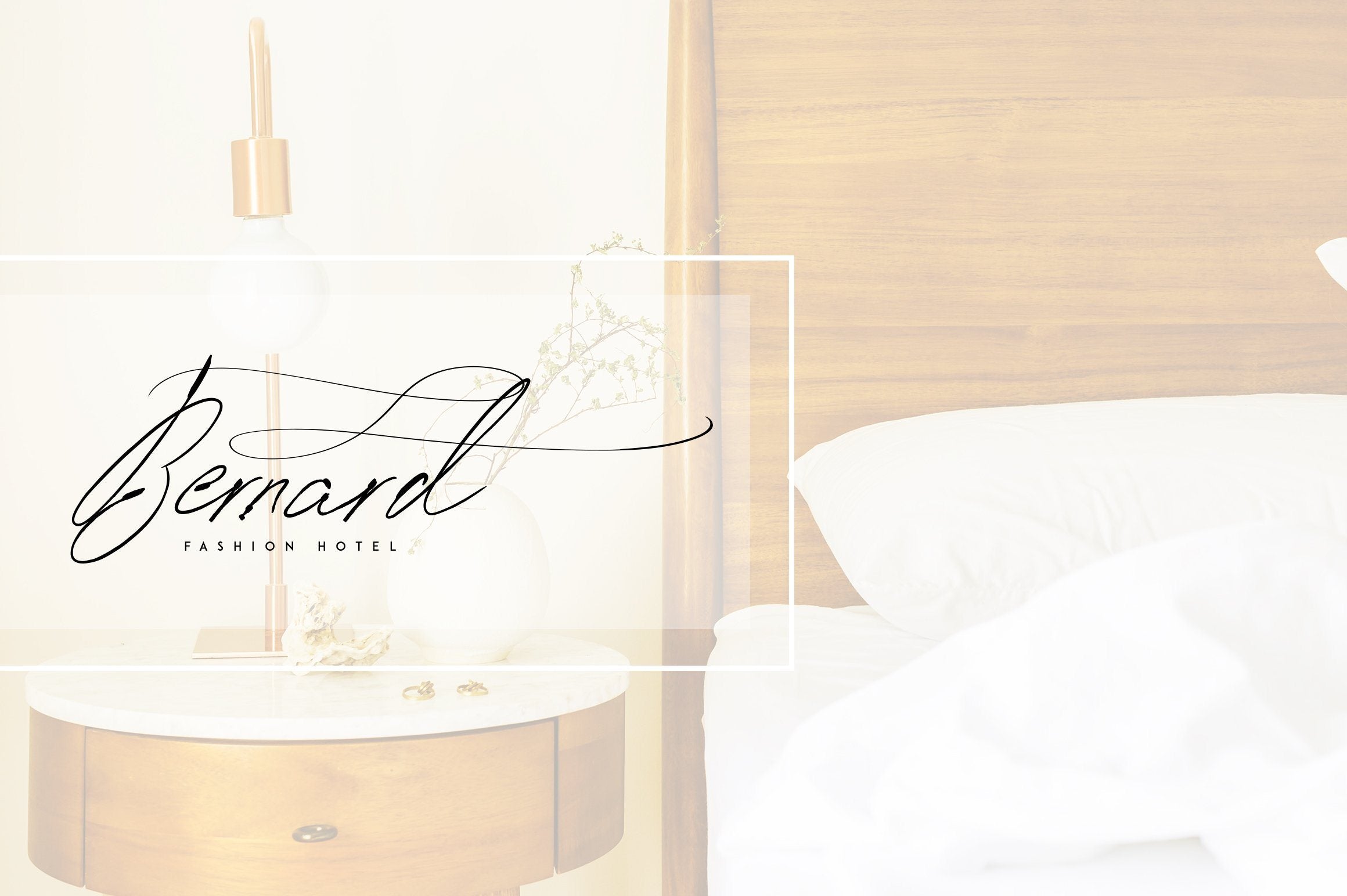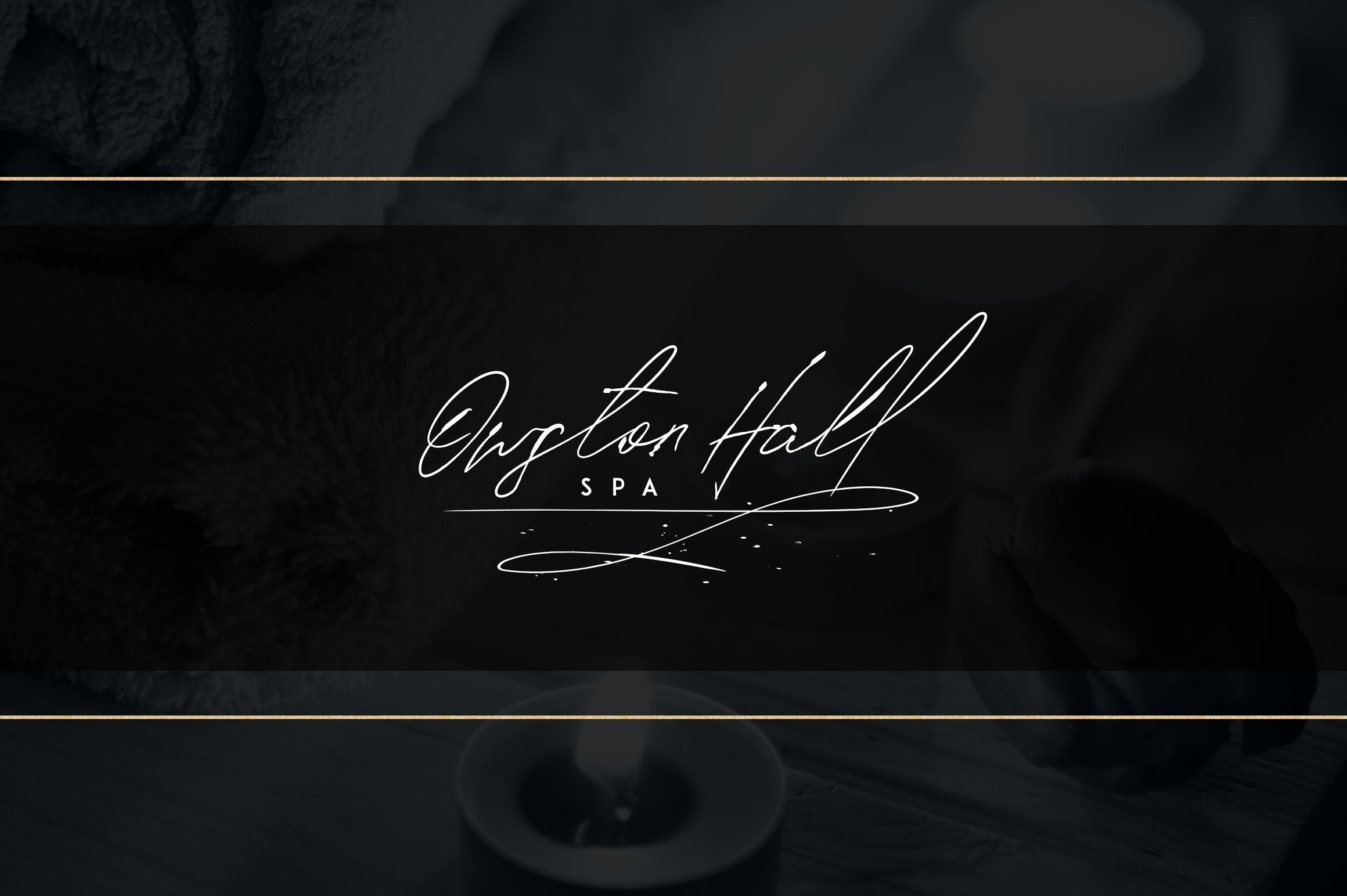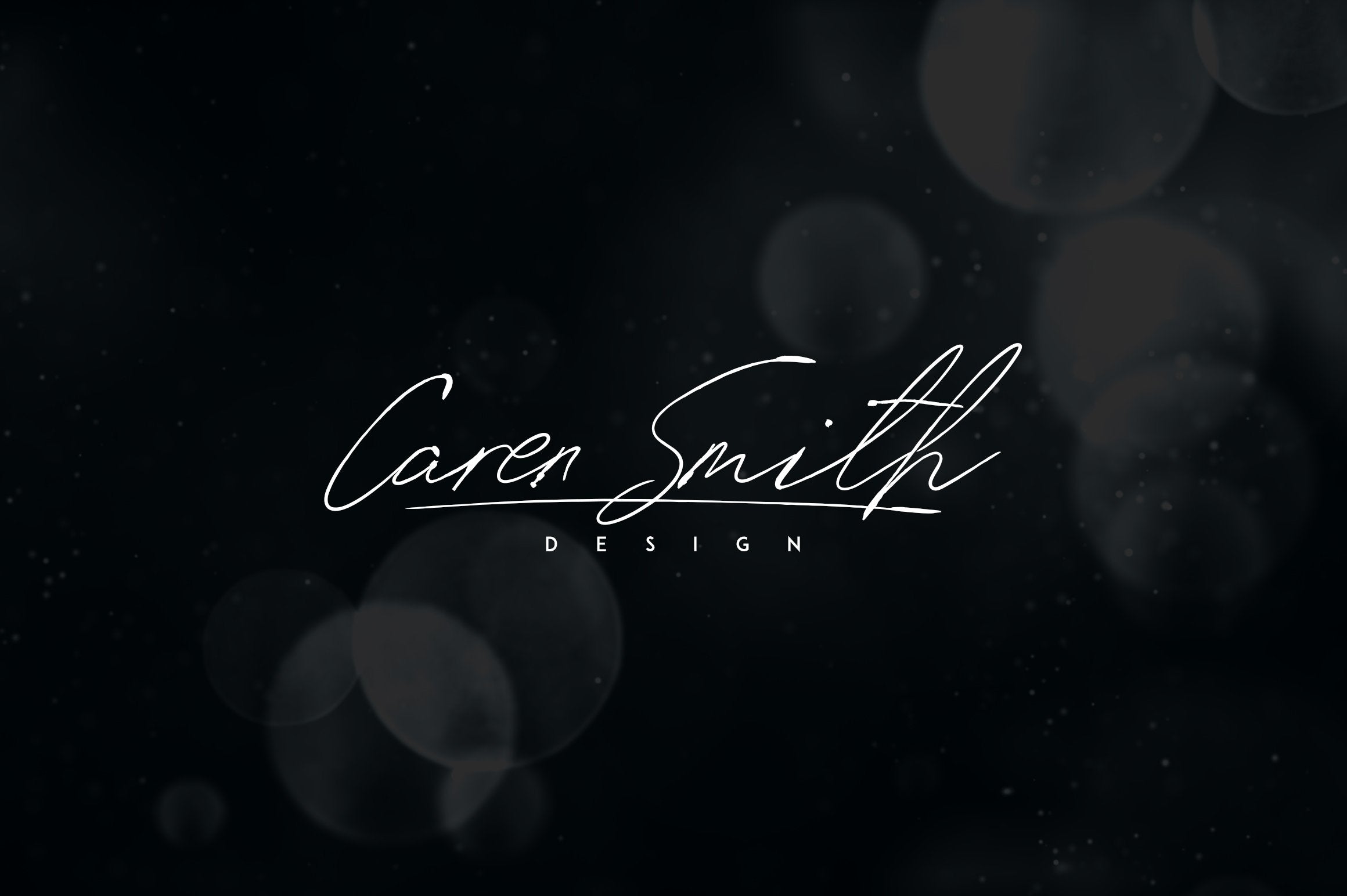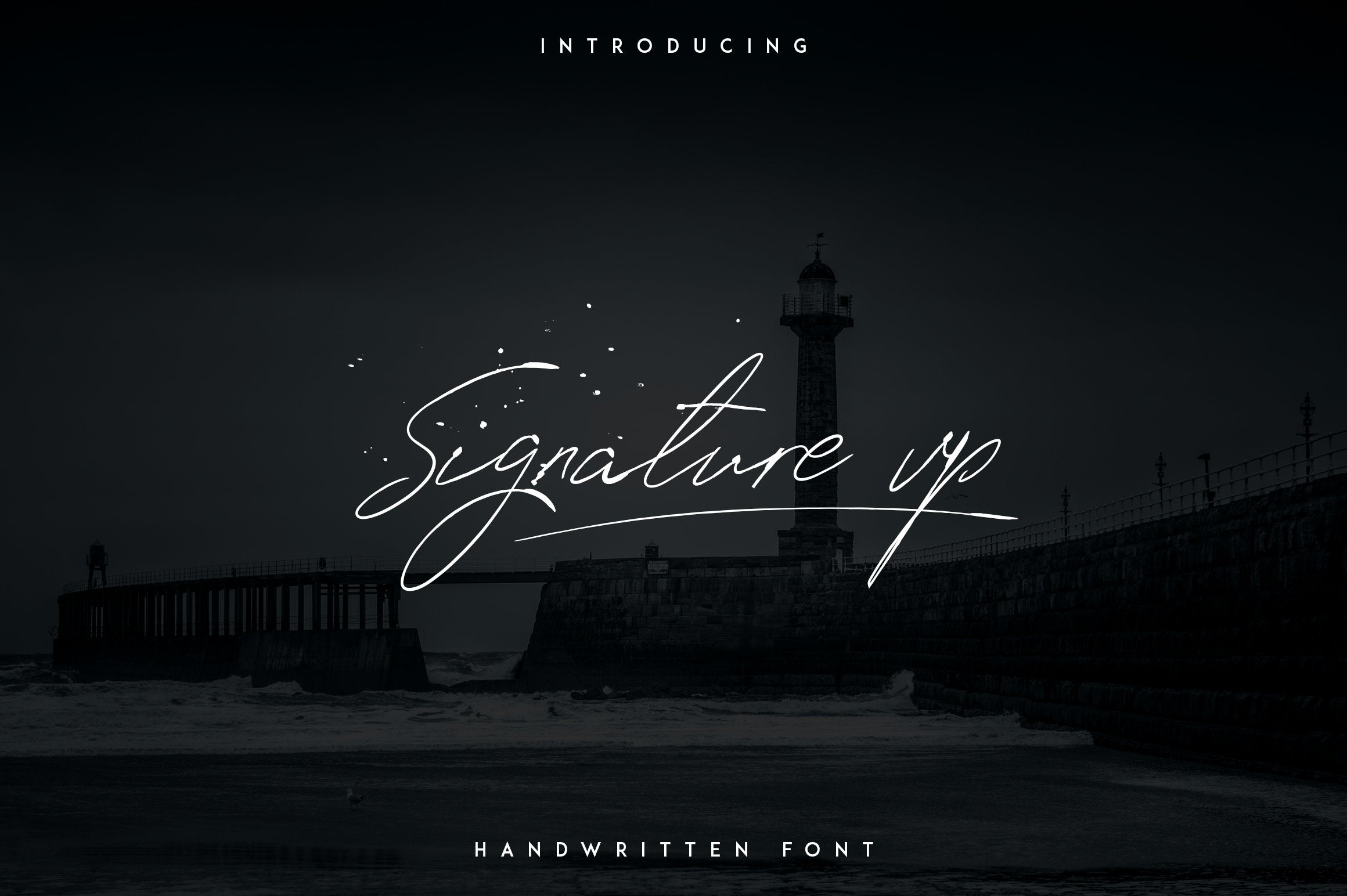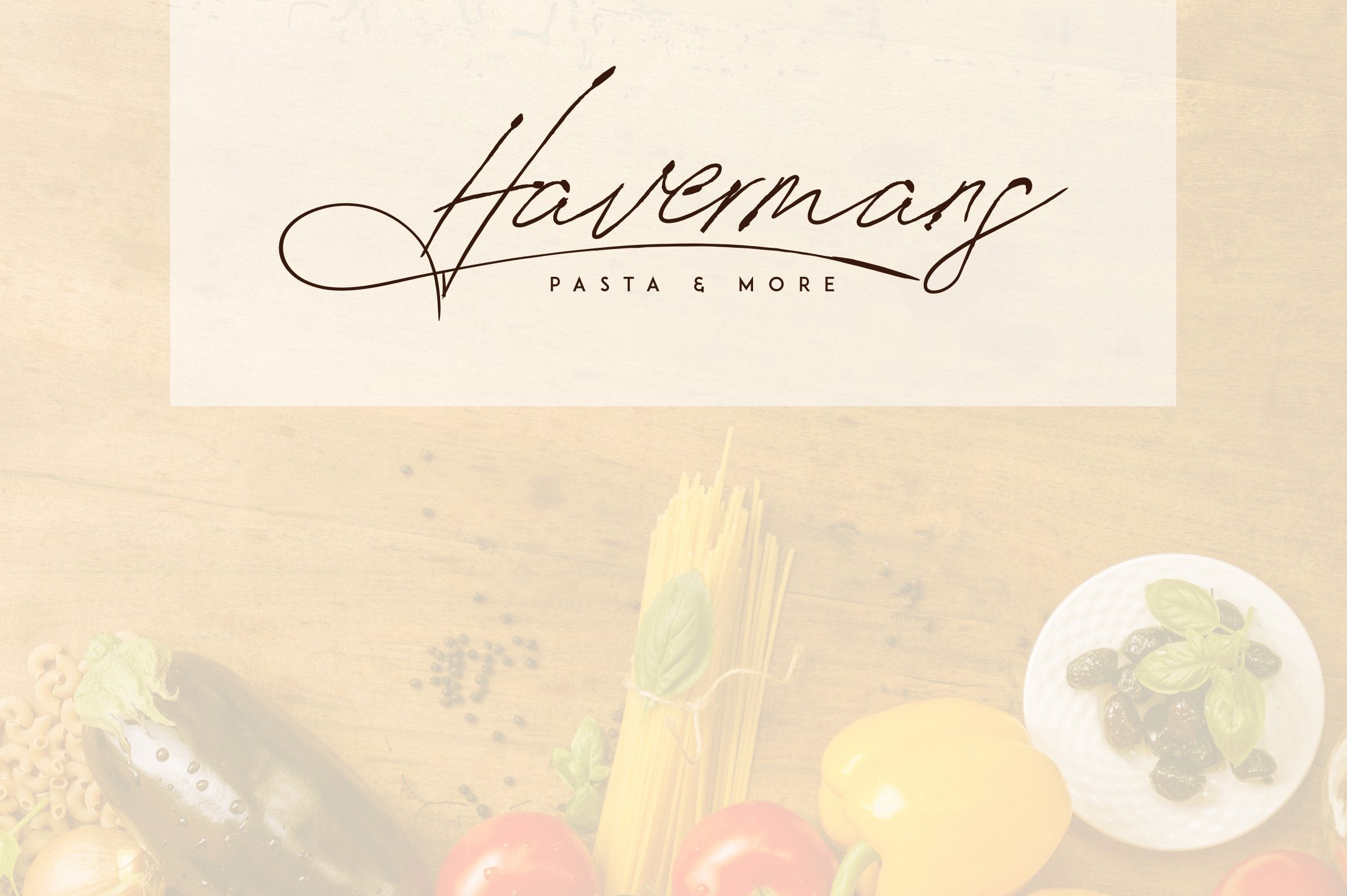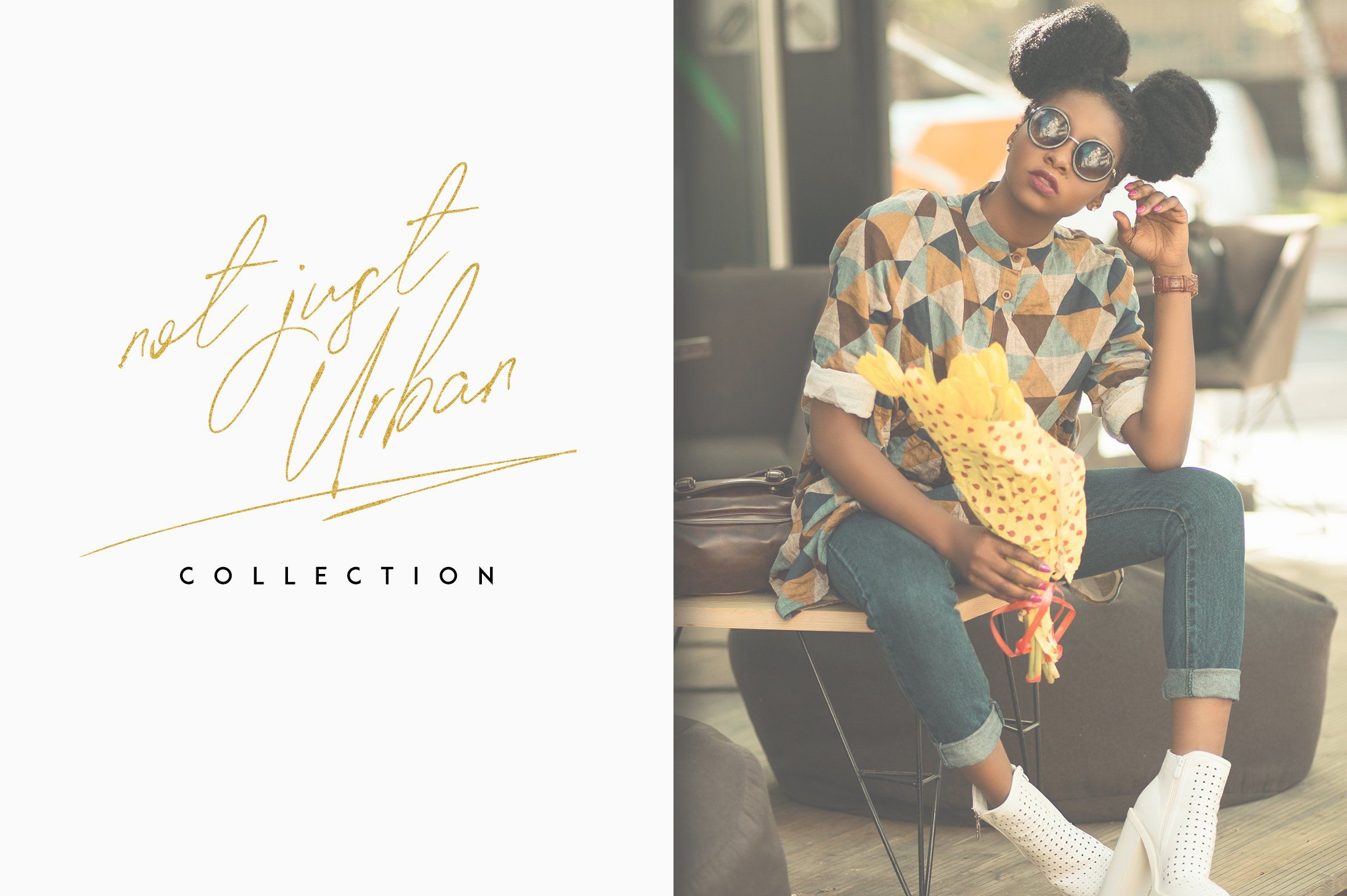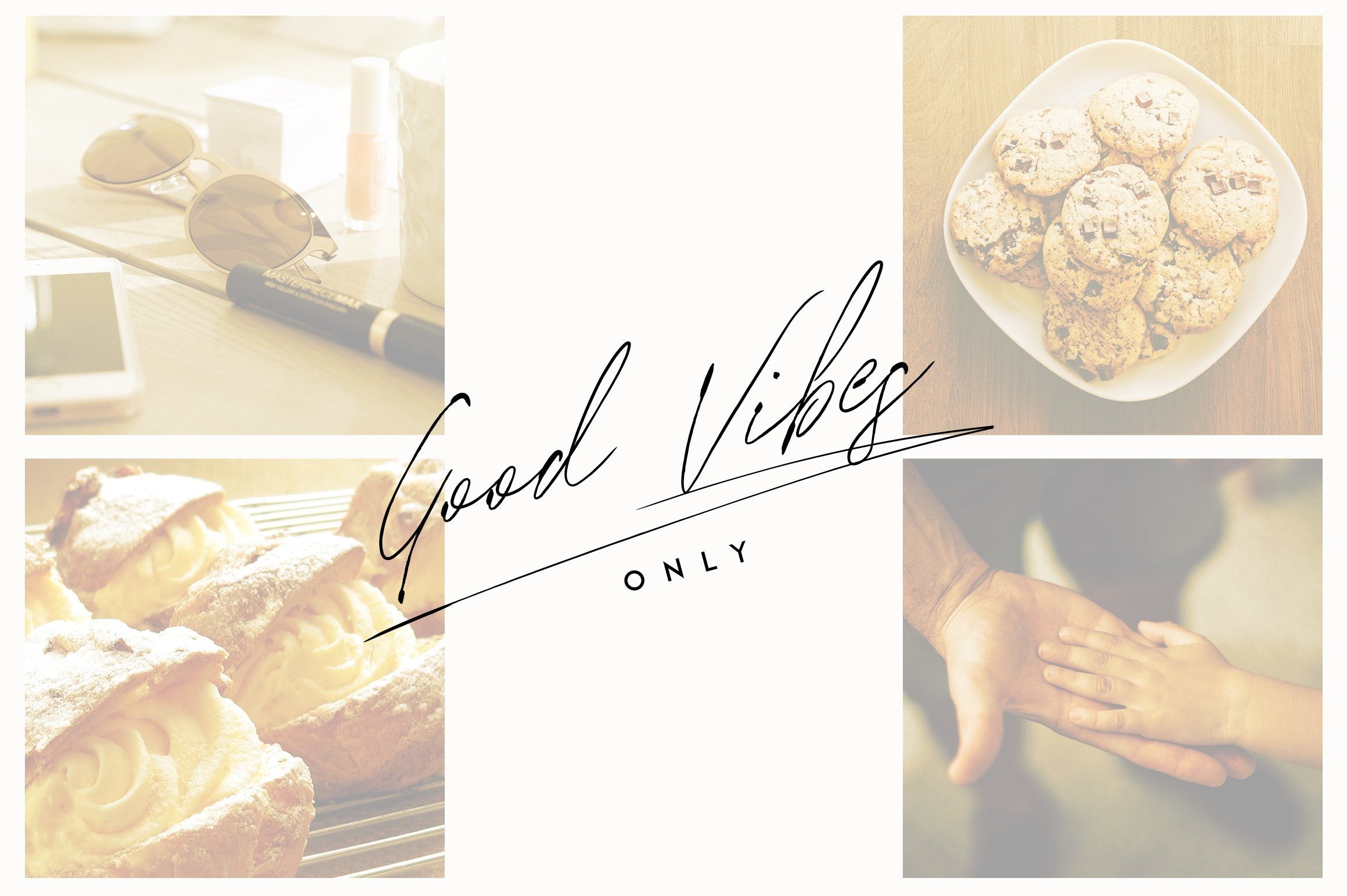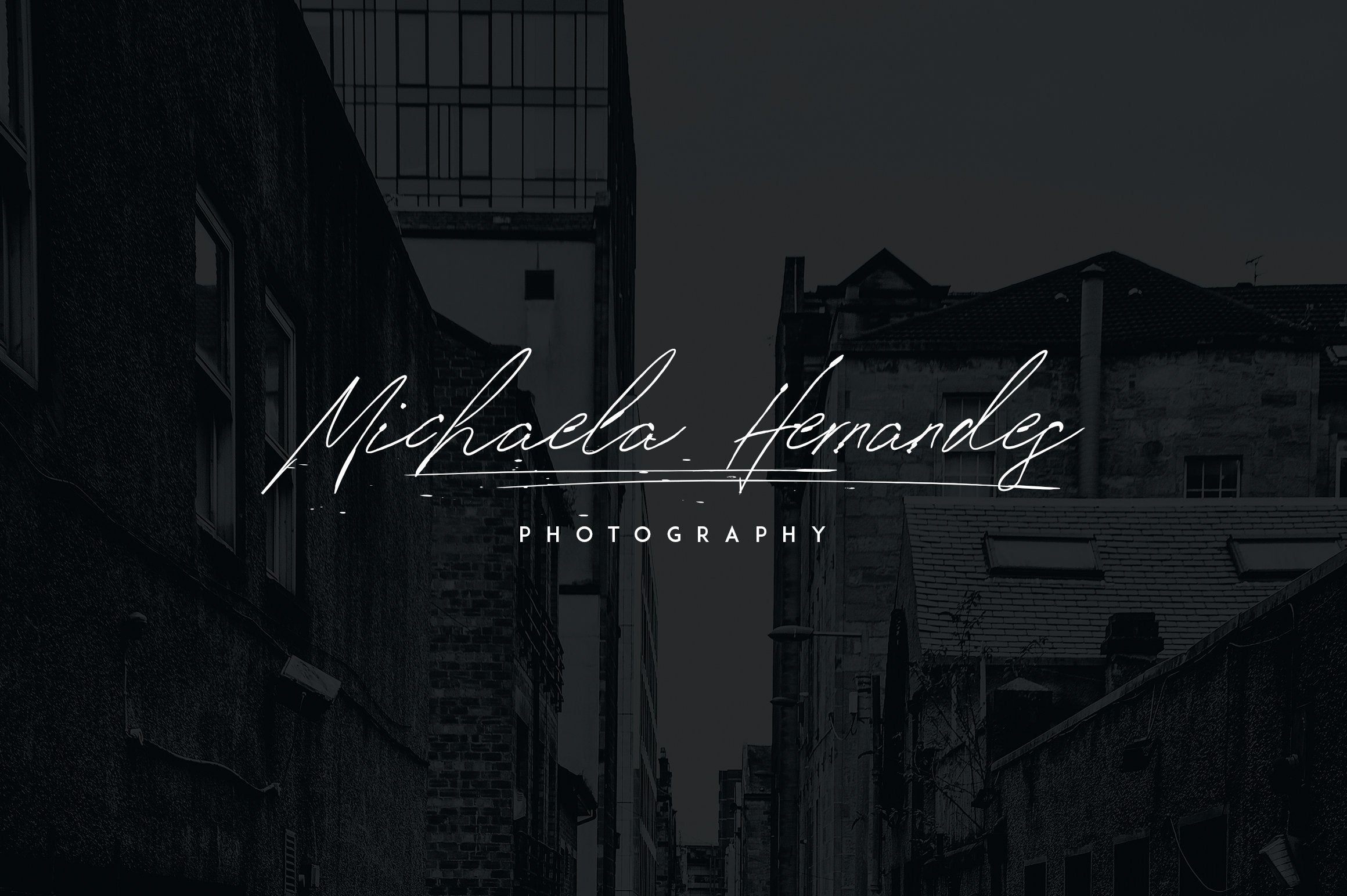
Signature vp – Handwritten font
Introducing Signature VP handwritten font Signature VP is elegant, ink font with 26 swashes and multilingual support. It’s a very versatile font that works great in large and small sizes. Signature VP is perfect for branding projects, home-ware designs, product packaging, magazine headers – or simply as a stylish text overlay to any background image. Uppercase,lowercase,numeral,punctuation & Symbol Multilingual 26 Swashes Ligatures ab, al, at, il, it, ul, th, ch, ck, cl, ct, of, ol, ot, op, oo, el, et, ep, ee, sl, sh, rr, re, ll, ss, ff, st Natural feel Feel free to contact me if you have any questions! Mock ups and backgrounds used are not included! Thank you! Enjoy!